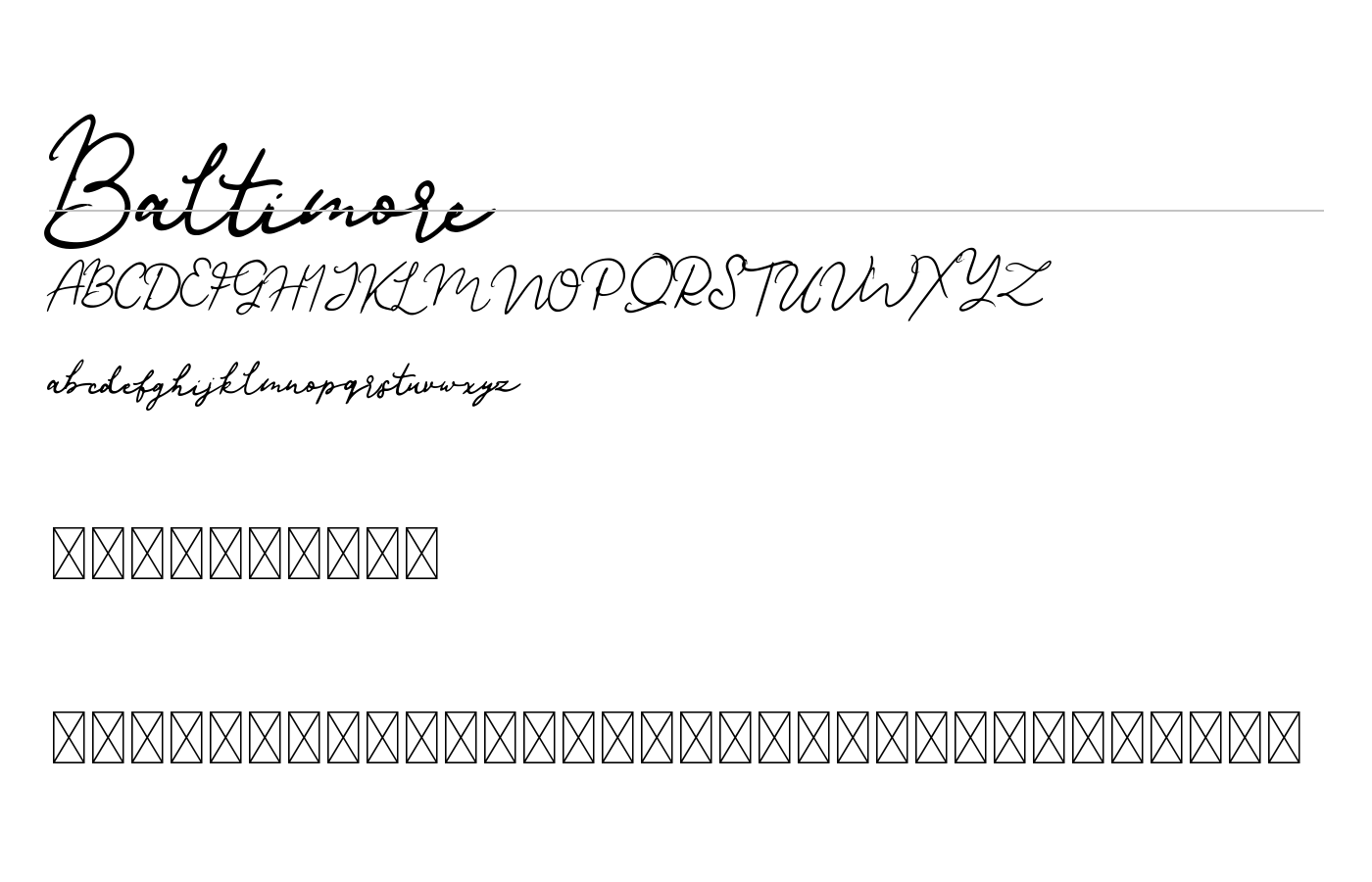
Baltimore is an elegant script font characterized by its delicate, flowing strokes and graceful cursive style. It features thin, connected letterforms with a natural, handwritten feel, making it perfect for adding a touch of sophistication and personality to invitations, branding, and editorial design where a refined yet approachable look is desired. This font shines in creative, feminine, and stylish contexts that call for a modern, classic script appearance.
Baltimore Font